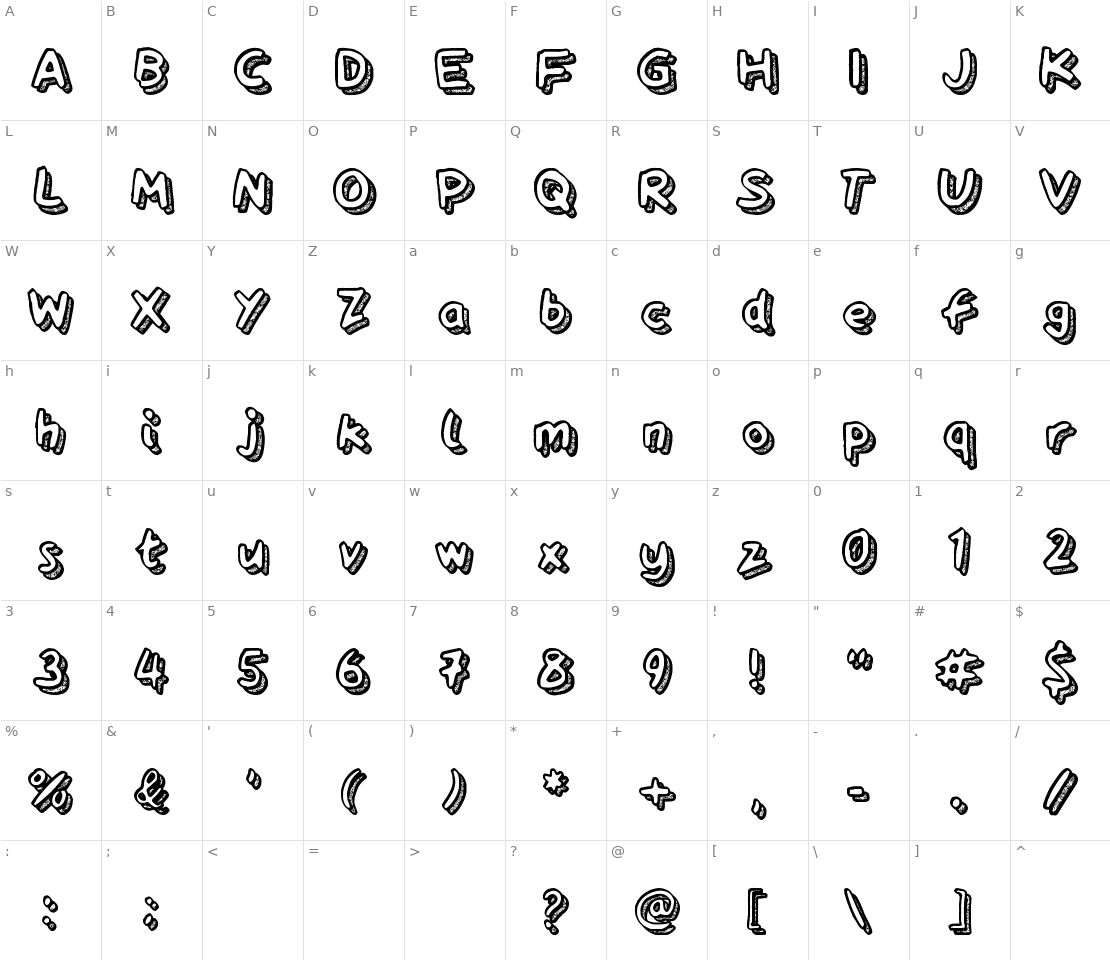
Playtime
Playtime is a sketchy, hand-drawn display face from Chequered Ink with a loose, childlike quality and subtle 3D shading that gives each letter a pop-up, crayon-on-paper feel. The textured strokes and wobbly forms lean into genuine kid energy rather than polished cuteness, making it a strong pick for children's books, toy packaging, and playful headlines where you want something that feels like a child actually drew it.